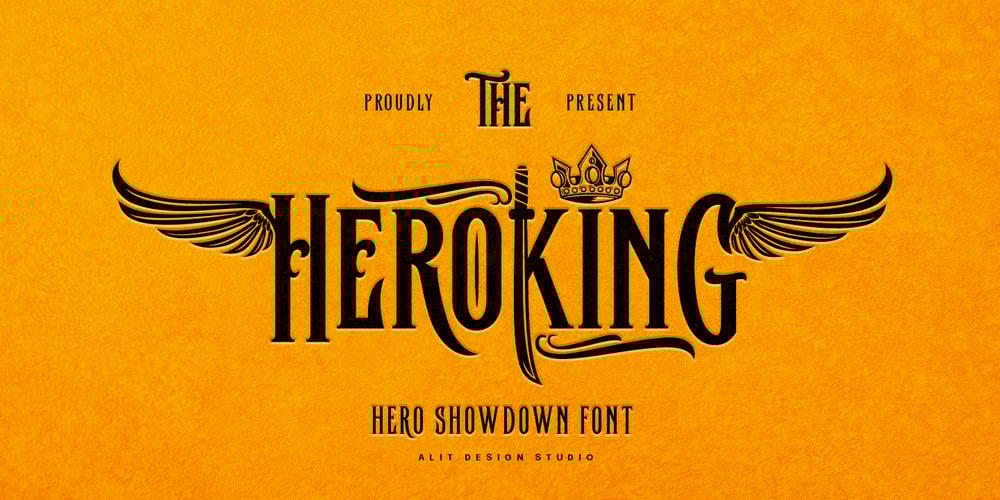
Heroking
Heroking font
Heroking Font Family was designed by Alit Suarnegara and published by Alit Design. Heroking contains 1 styles and family package options. Presenting ⚔️The Hero King Typeface⚔️ by alitdesign.The Hero King Typeface is inspired by action movie posters with the theme of war or knights in the night knight. The bold character of The Hero King Typeface is perfect for making hero movie titles, game titles, logotypes, halloween theme, t-shirt designs and so on with heroic themes.The Hero King Typeface has alternatives that you can combine between swashes and symbols that have the theme of heroes and war. Besides that this font is very easy to use both in design and non-design programs because everything changes and glyphs are supported by Unicode (PUA).The Hero King Typeface has a total of 1052 glyphs including symbol, multilingual.Language Support : Latin, Basic, Western European, Central European, South European,Vietnamese.In order to use the beautiful swashes, you need a program that supports OpenType features such as Adobe Illustrator CS, Adobe Photoshop CC, Adobe Indesign and Corel Draw. but if your software doesn’t have Glyphs panel, you can install additional swashes font files.